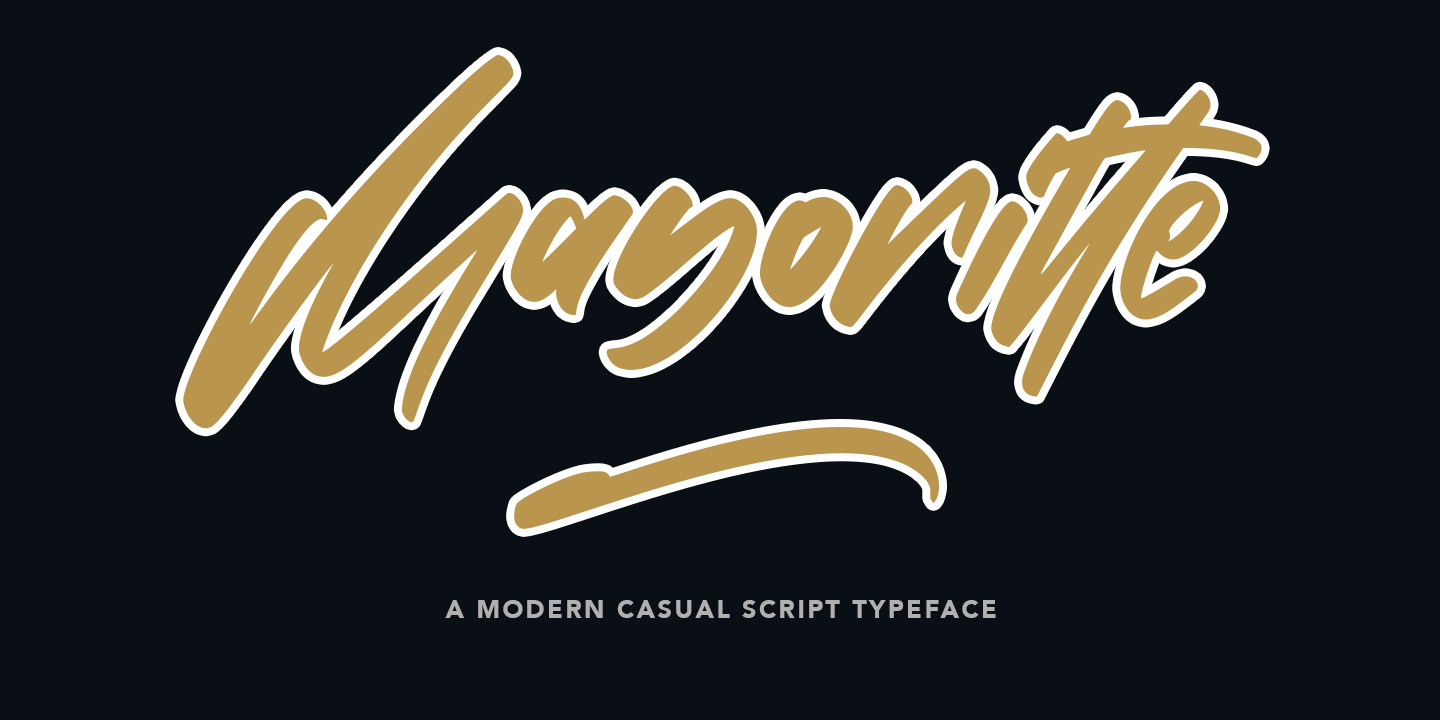
Mayoritte Font is perfect for sophisticated editorial designs, upscale magazine headlines, elegant book covers, refined corporate branding, luxury fashion magazines, premium product catalogs, high-end architectural presentations, distinguished legal documents, prestigious award certificates, executive business cards, sophisticated newspaper mastheads, and authoritative institutional communications.
What makes Mayoritte Font so exciting is its distinguished character and authoritative presence that perfectly embodies professional excellence and institutional credibility. This remarkable typeface features classical proportions, refined letterforms, and sophisticated design details that communicate reliability, prestige, and established authority, making it ideal for organizations and projects that need to convey trustworthiness, professional competence, and institutional gravitas in their visual communications.
The Mayoritte Font family typically includes multiple weight variations from light to bold, with extended character sets, professional ligatures, and carefully optimized spacing that ensures exceptional readability and commanding presence across all formal design applications.
Whether you're creating official institutional materials or developing prestigious brand identities, Mayoritte Font Free Download delivers the perfect typography solution for projects requiring authoritative elegance and professional distinction. This versatile font seamlessly combines traditional sophistication with contemporary functionality, making it an essential tool for designers working on high-level projects that demand respect, credibility, and the highest standards of professional presentation and institutional authority.